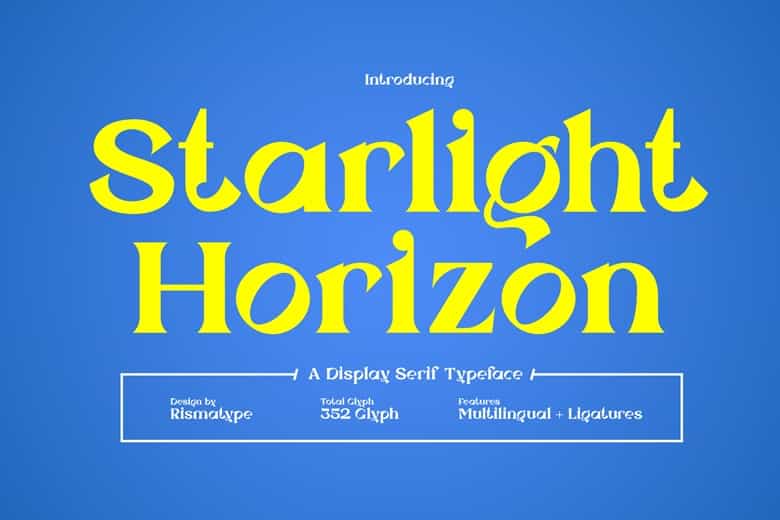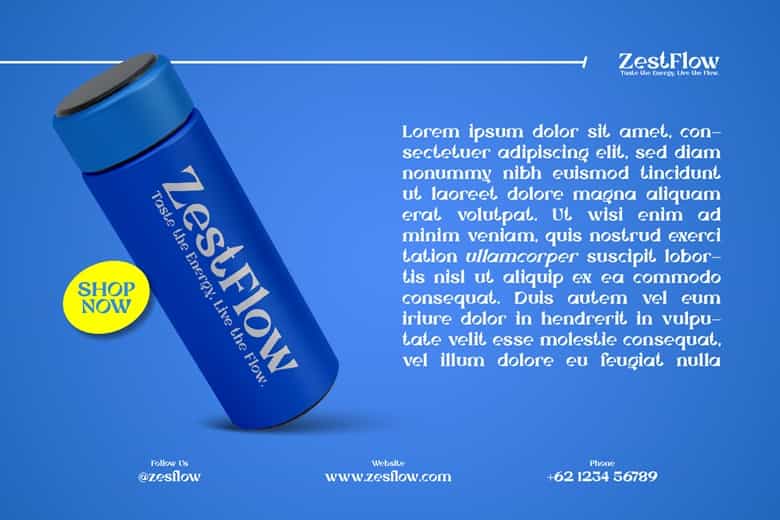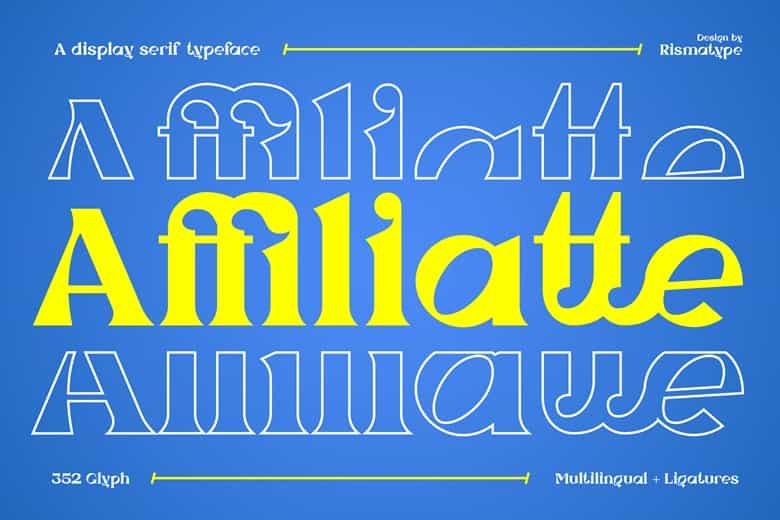
Starlight Horizon is a modern display serif font that combines sophistication with the element of modern art. Coming with 352 glyphs in total, this font is properly made to meet various artistic requirements. Support for multiple languages and ligatures is also provided.